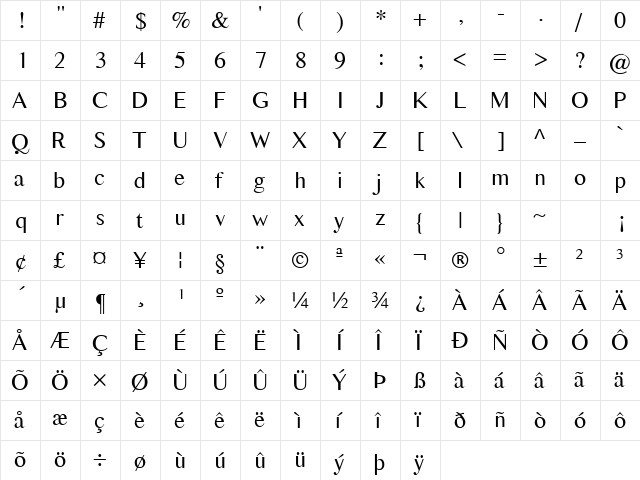
Lauderdale Regular
Design Context for Lauderdale Typeface
Lauderdale is a composed and adaptable typeface that performs quietly and consistently across a wide range of design contexts.